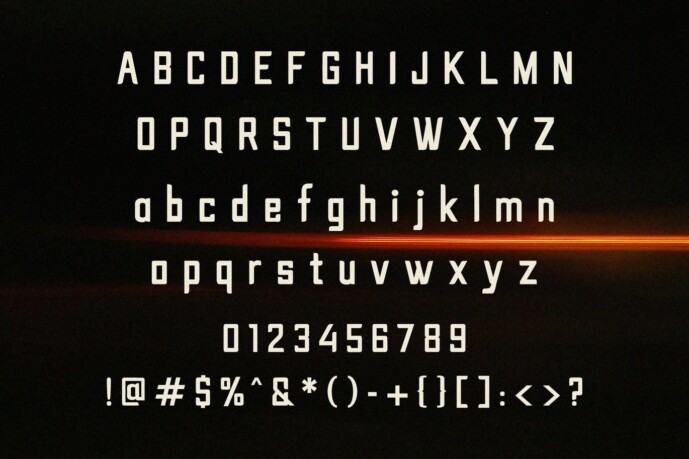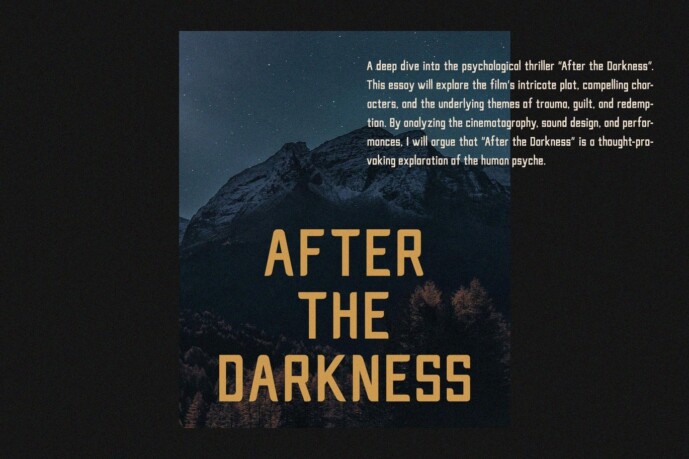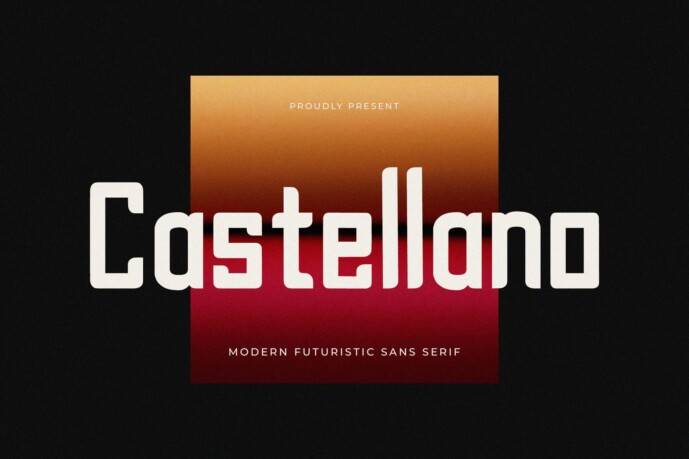
Castellano Font
Designer: typelogue
Castellano Font is a versatile sans serif typeface designed to capture the essence of modern futurism. With its clean lines and geometric shapes, this font is ideal for creating striking, contemporary designs. Whether you’re designing for print or digital media, Castellano will add a futuristic touch to your projects.